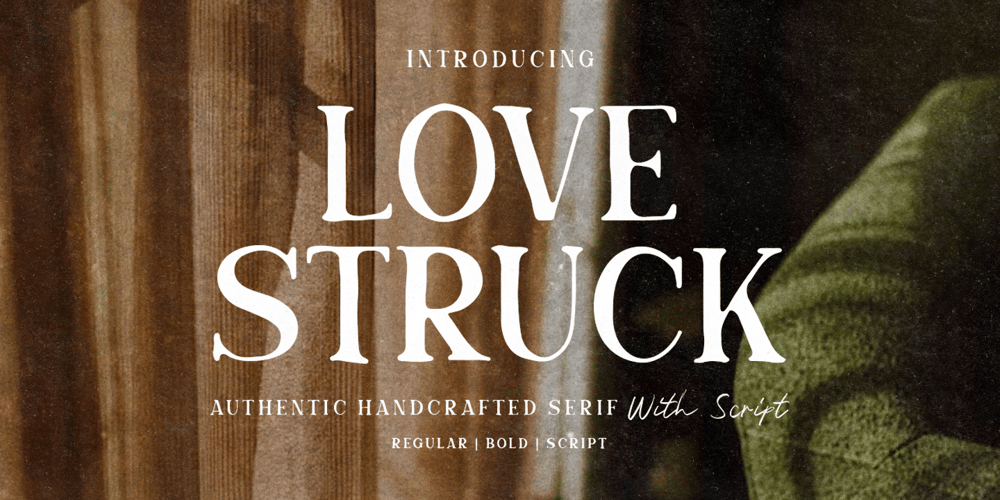
Love Struck Font Family was designed by Hendry Juanda and published by Letterhend. Love Struck contains 3 styles and family package options. Combining handcraft serif and simple script, Love Struck is an authentic typeface that gracefully marries a delicate and refined aesthetic with a hint of rustic charm.Features : Uppercase & lowercase Numbers and punctuation Multilingual PUA encoded We highly recommend using a program that supports OpenType features and Glyphs panels like many of Adobe apps and Corel Draw, so you can see and access all Glyph variations.